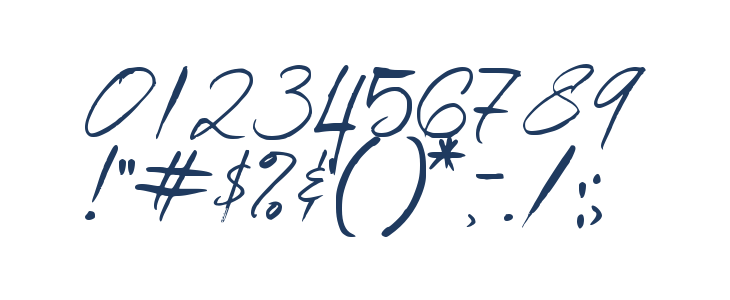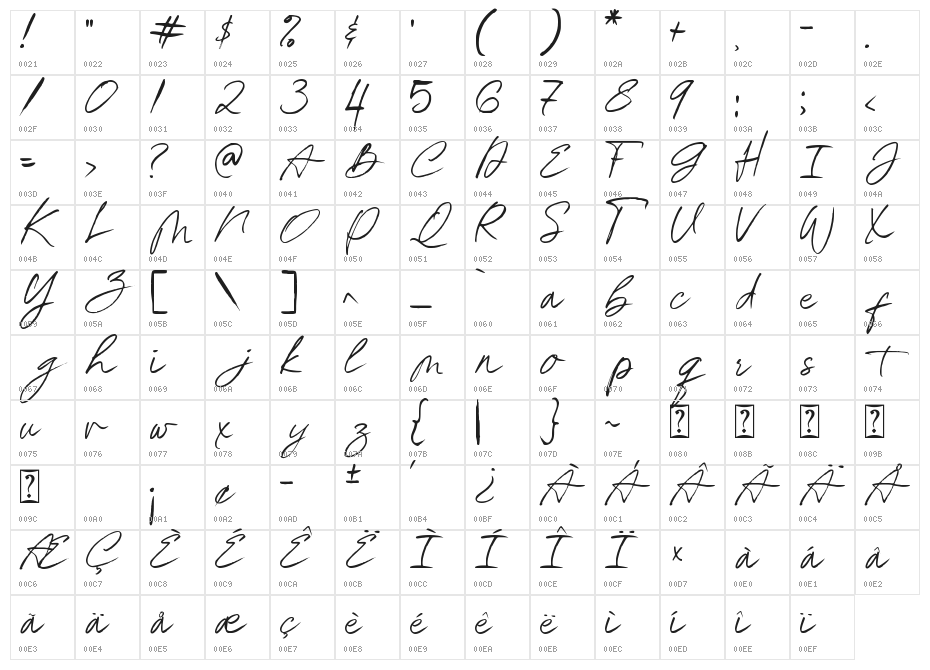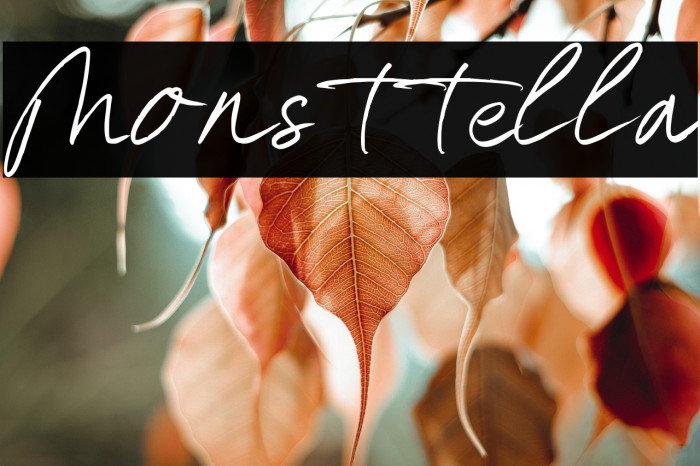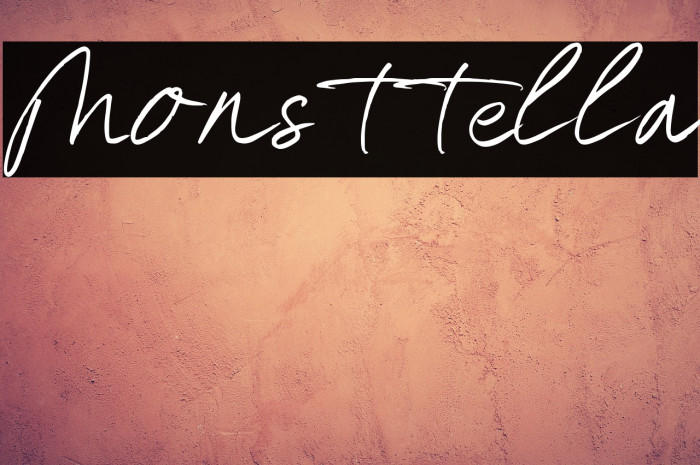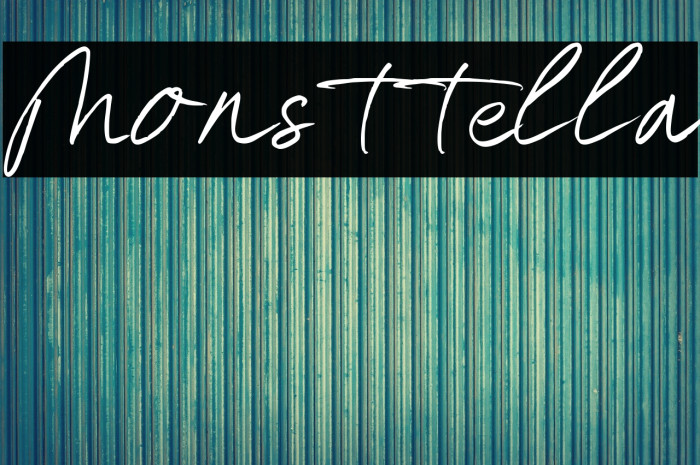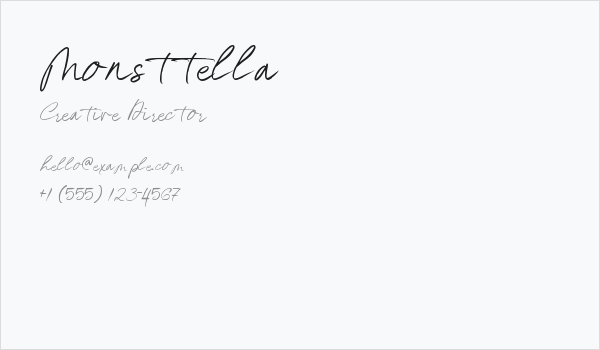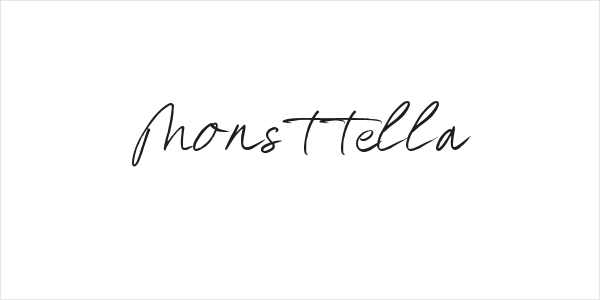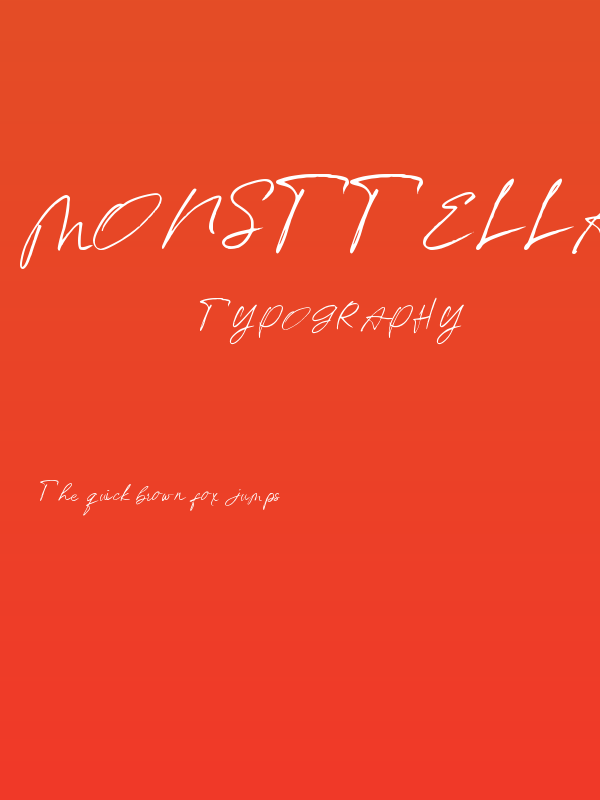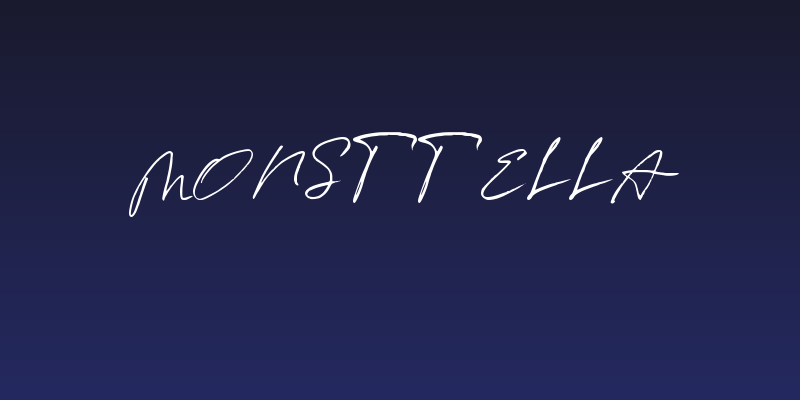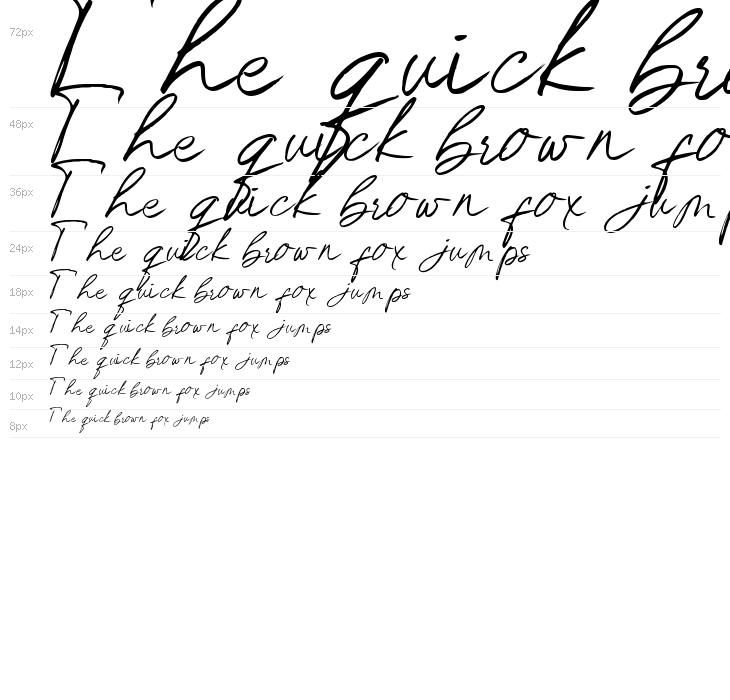
Monsttella Font
Monsttella Description
This font exudes a casual and dynamic handwritten style, characterized by its fluid and connected strokes. The letters are slightly slanted, giving a sense of movement and energy. The uppercase and lowercase letters maintain a consistent flow, with some letters featuring unique loops and curves that add personality. The numerals are bold and easily distinguishable, while the special characters complement the overall style with their playful design. This font is perfect for projects that require a personal touch or an informal, friendly vibe.
| Proposed Projects | Ideal for greeting cards, personal branding, social media graphics, and informal invitations. |